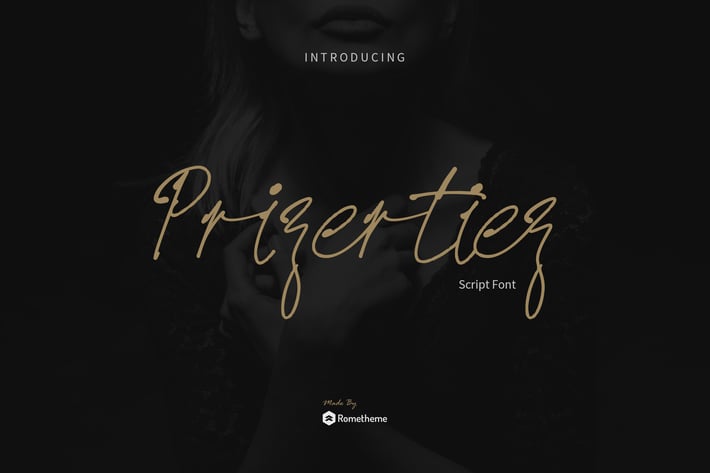
Prizertiez - Script Font
Prizertiez is script font, handwritten typeface. It has a elegant, classy look and cool. Itβs a great font for fashion,
apparel projects, signature, album cover, logo, branding, magazine, social media, & advertisements,
but also works great for other projects.
- The perfect font choice for powerful projects - watermarks, signatures, photography, logos, business cards, quotes,
album covers.